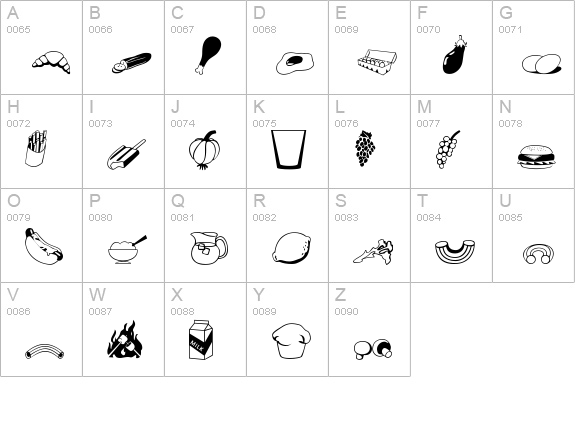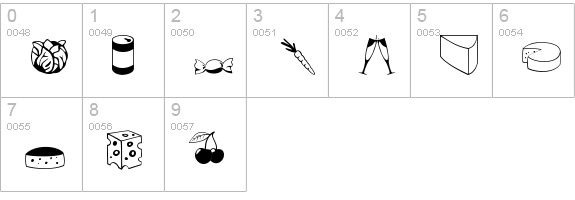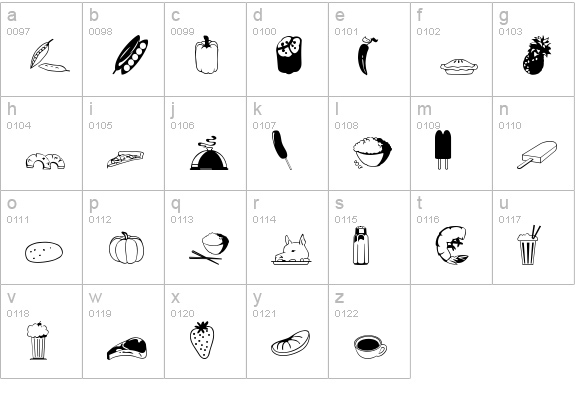
FoodDings Font Details
Introducing FoodDings font, a deliciously playful typeface that will add a touch of whimsy to your designs. This unique font features a delightful assortment of food-related icons and symbols, perfect for culinary projects, menu designs, recipe cards, and more. From juicy fruits to tasty treats, FoodDings has everything you need to create mouth-watering visuals that will leave a lasting impression. Best of all, FoodDings font is completely free! You can download this delightful typeface at FontsMarket.com and start using it in your projects right away. Whether you're a professional designer, a food blogger, or just someone who loves to cook, FoodDings is sure to add a fun and flavorful touch to your work. Don't miss out on this tasty font – download it today and let your creativity shine!